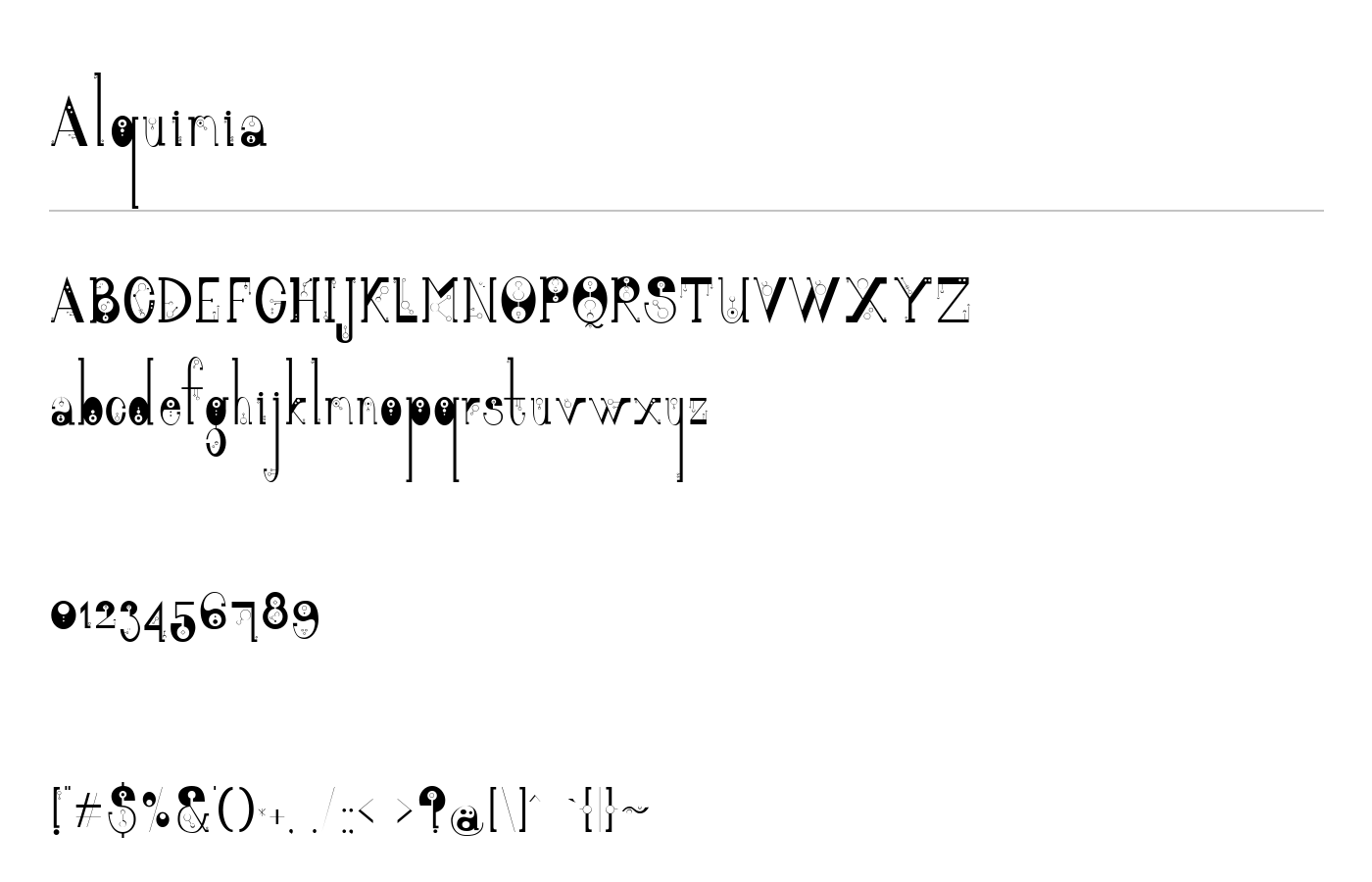
Alquimia is an artistic serif font with a vintage and decorative flair, featuring a mix of delicate thin strokes and bold, solid elements that create a unique contrast. Its high, narrow letterforms and intricate details give it an elegant but quirky personality, making it ideal for creative branding, display headlines, and designs that seek a distinctive, mystical, or retro vibe. This font stands out best in projects where originality and visual impact are key, such as logos, posters, and editorial titles.
Alquimia Font
About Alquimia Font